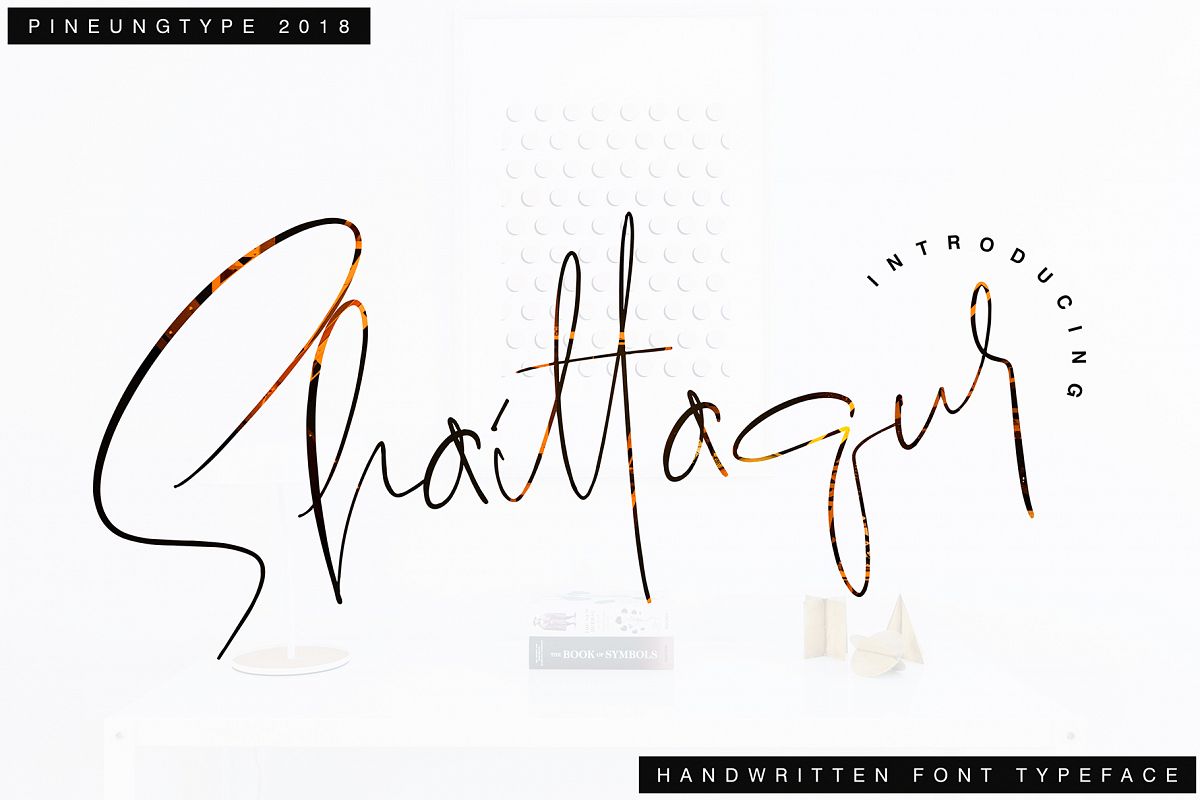
Shaittaqur
Shaittaqur-Regular
Shaittaqur font with new style handwritten, this font will perfect for many different project ex: quotes, logo, blog header, poster, banding, fashion, apparel, letter, invitation, stationery, etc...